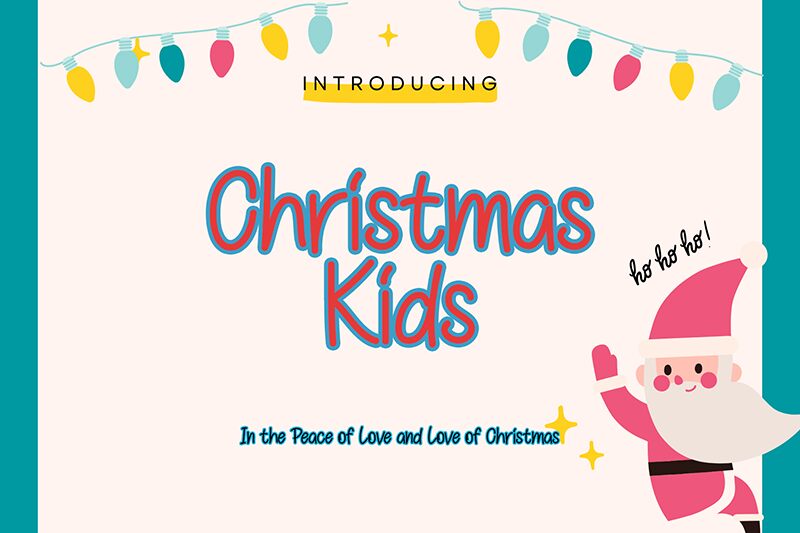
Christmas Kids
Christmas Kids font by Sarif Letter is a cute display font with a casual handwritten feel and modern appeal. Its friendly appearance and approachable style achieve playful depth for an immersive effect that exaggerates this magical time of the year. The free font also adds uniqueness to outgoing designs where it can be featured dominantly.
Include Christmas Kids in posters, t-shirts, cards, book covers, wallpaper patterns, school projects with your class or home decorations you build for family or guests.